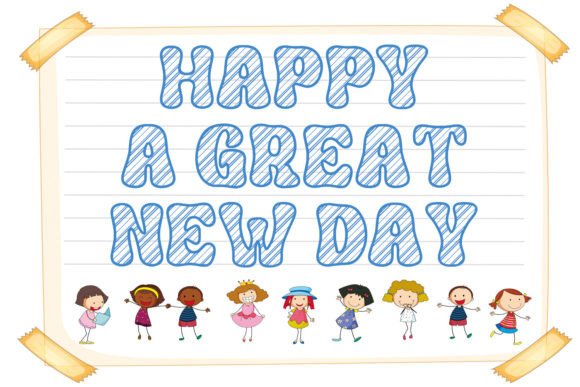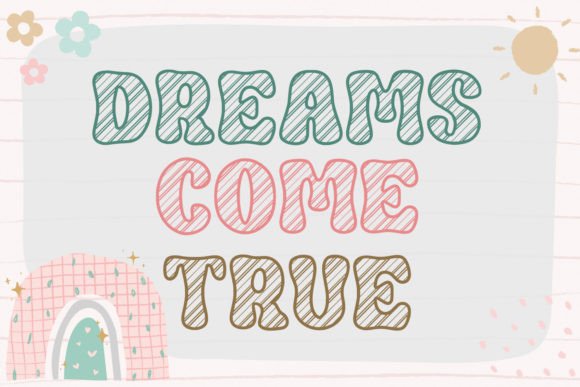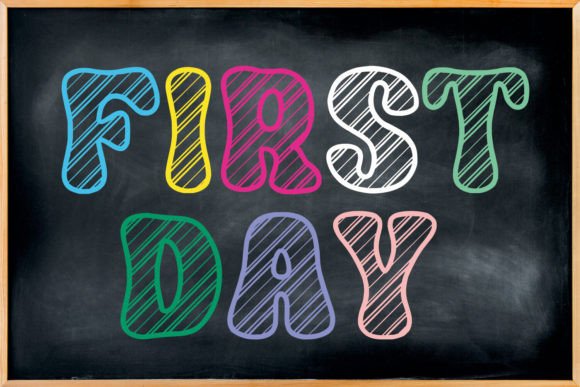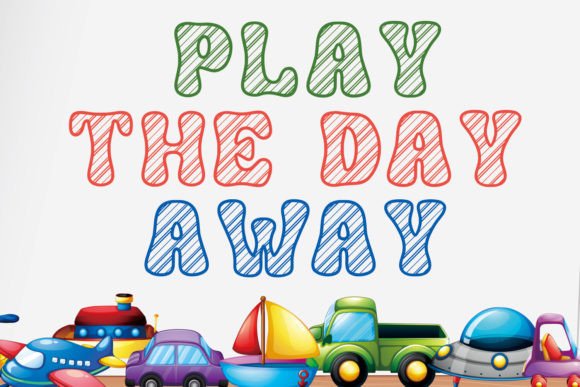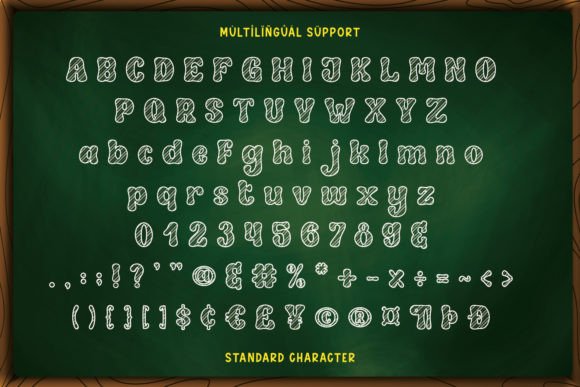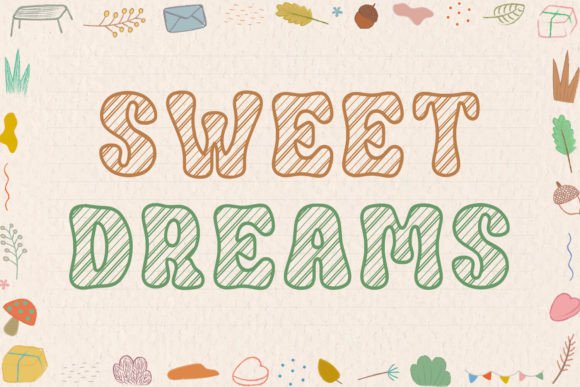
Introducing Chalkboard Font: The Perfect Blend of Playful Charm and Nostalgic Elegance
Are you looking for a font that captures the essence of childhood whimsy and nostalgia? Look no further than Chalkboard Font, the perfect blend of playful charm and nostalgic elegance. This delightful display font is tailor-made for all your school-themed projects, from crafting heartfelt Mother’s Day cards to adorning your classroom decor.
The Charm of Chalkboard Font
Chalkboard Font is a handwritten style font that is reminiscent of chalkboard doodles. Its adorable and playful design is sure to bring back memories of childhood and add a touch of youthful flair to your crafts, embroidery, greeting cards, and decorations. With its versatile appeal, Chalkboard Font is an ideal choice for bringing back-to-school excitement to life.
Perfect for School-Themed Projects
Whether you’re a designer, crafter, or teacher, Chalkboard Font is the perfect choice for all your school-themed projects. From creating eye-catching posters and flyers to designing heartfelt Mother’s Day cards, this font is sure to add a touch of nostalgia and whimsy to your designs. Its playful and charming design makes it perfect for:
- Crafting heartfelt Mother’s Day cards
- Adorning classroom decor
- Creating back-to-school excitement
- Designing greeting cards and invitations
- Adding a touch of youthful flair to your crafts and embroidery
Bringing Creativity to Life
Chalkboard Font is more than just a font – it’s a way to bring creativity and imagination to life. With its warm and inviting design, this font is sure to inspire and delight. Whether you’re a designer, crafter, or teacher, Chalkboard Font is the perfect choice for:
- Crafts: Add a touch of whimsy and nostalgia to your crafts, from scrapbooking to card making.
- Embroidery: Create beautiful and intricate designs with Chalkboard Font, perfect for embroidering quotes, lyrics, or poems.
- Greeting Cards: Design heartfelt and personalized greeting cards for special occasions.
- Decorations: Add a touch of playful charm to your classroom or home decor with Chalkboard Font.
Why Choose Chalkboard Font?
So why choose Chalkboard Font over other fonts? Here are just a few reasons:
- Unique and Playful Design: Chalkboard Font has a unique and playful design that is sure to capture the essence of childhood whimsy and nostalgia.
- Versatile Appeal: This font has a versatile appeal that makes it perfect for a wide range of projects, from crafts to decorations.
- Easy to Read: Chalkboard Font is easy to read, making it perfect for designs that require a clear and concise message.
- High-Quality Design: This font is designed with high-quality and precision, ensuring that it looks great in any design.
Get Ready to Inspire and Delight
With Chalkboard Font, you’re not just getting a font – you’re getting a way to inspire and delight. Whether you’re a designer, crafter, or teacher, this font is sure to bring a touch of creativity and imagination to your designs. So why wait? Get ready to inspire and delight with every stroke of the chalk.
In conclusion, Chalkboard Font is the perfect blend of playful charm and nostalgic elegance. With its unique and playful design, versatile appeal, and high-quality design, this font is sure to bring creativity and imagination to life. Whether you’re a designer, crafter, or teacher, Chalkboard Font is the perfect choice for all your school-themed projects. So why wait? Embrace the joy of learning and creativity with Chalkboard Font today!